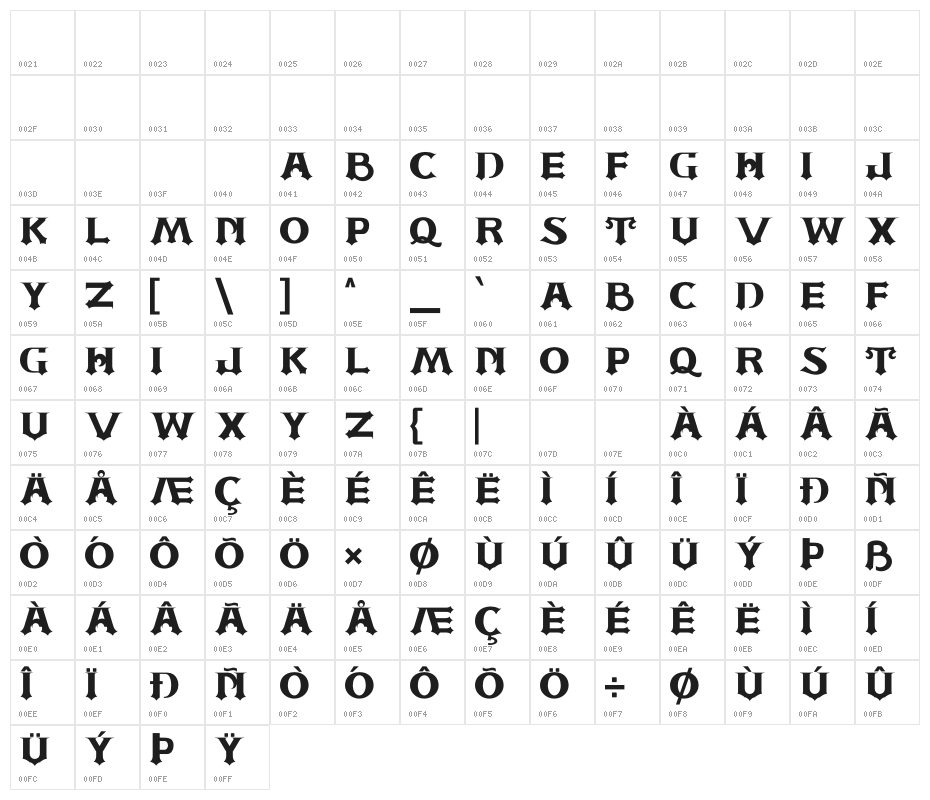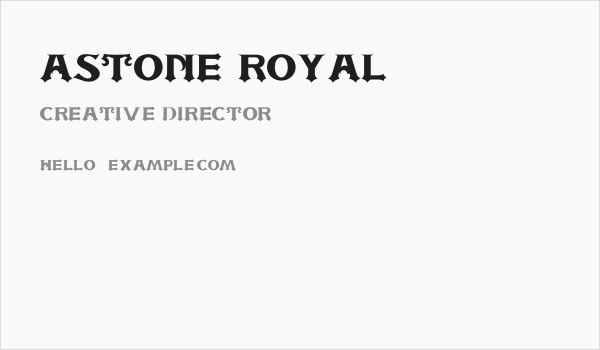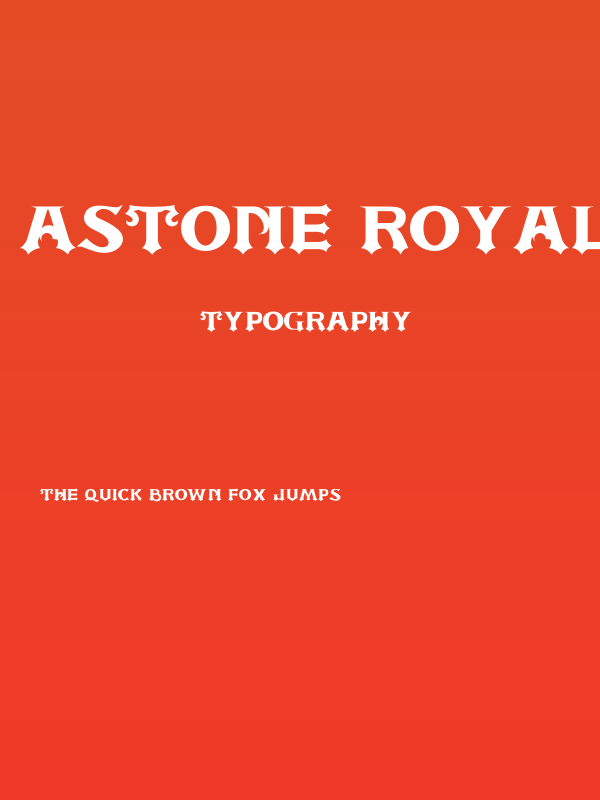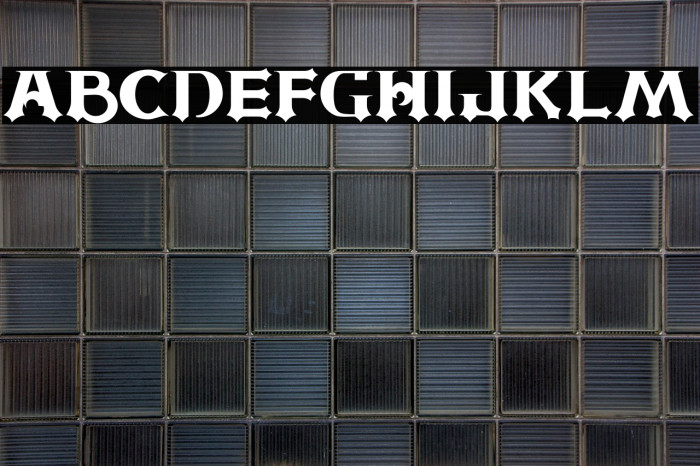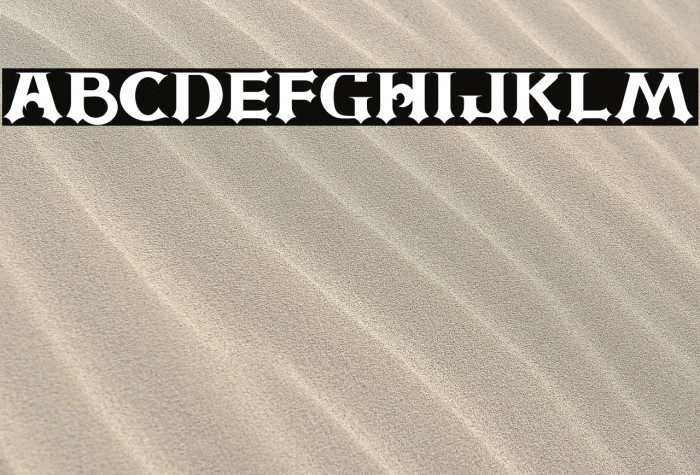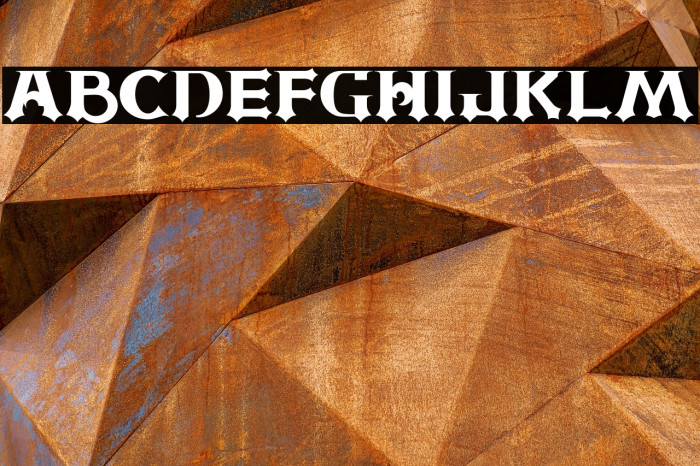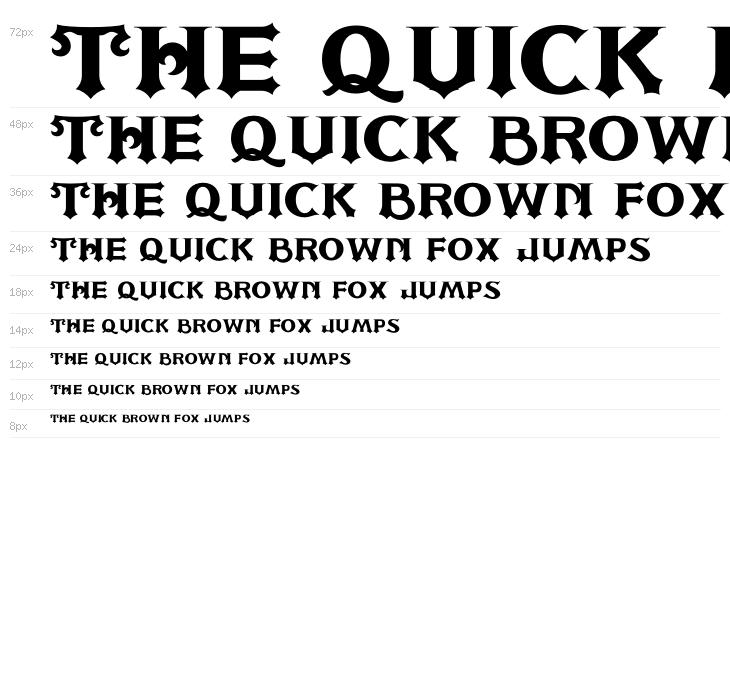
ASTONE ROYAL Font
ASTONE ROYAL Description
This font features a bold, dramatic style with strong, angular lines and sharp edges, reminiscent of traditional Gothic or Blackletter typefaces. The characters are intricately designed with pointed serifs and ornamental details, giving it a medieval and regal appearance. The uppercase letters are particularly striking, with a consistent height and width that create a uniform and balanced look. The font's unique style makes it suitable for projects that require a touch of elegance and historical flair. It is ideal for creating eye-catching headlines, logos, and decorative elements that need to stand out.
| Use Case | Headlines, Logos, Decorative elements |
| Proposed Projects | Ideal for medieval-themed designs, book covers, logos, and decorative headlines. |